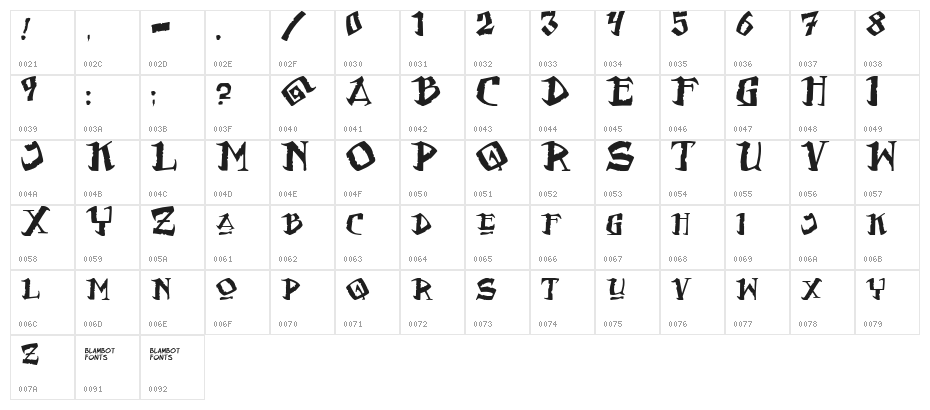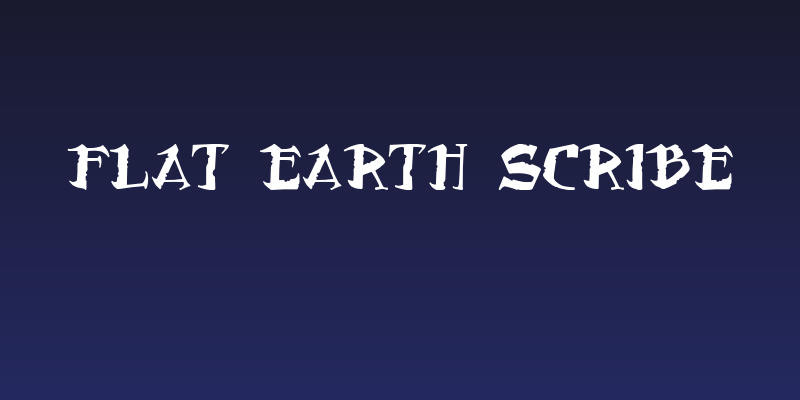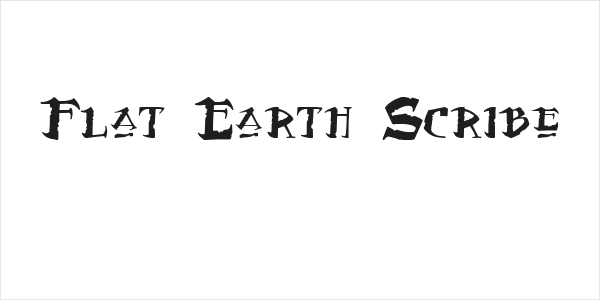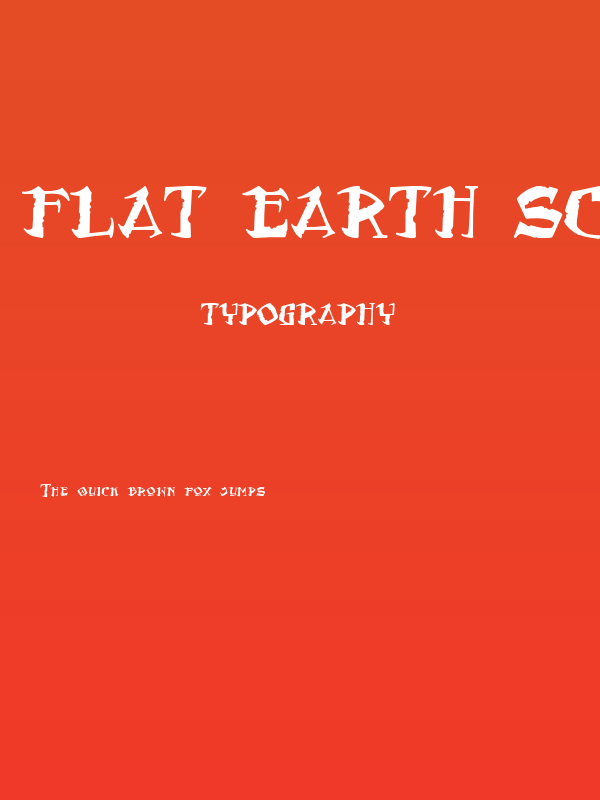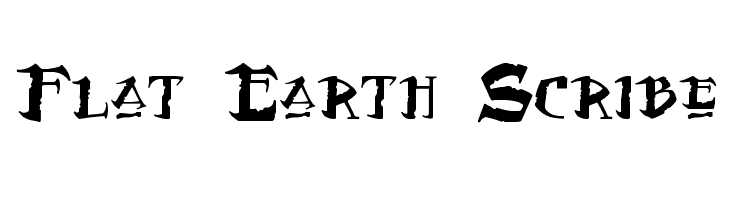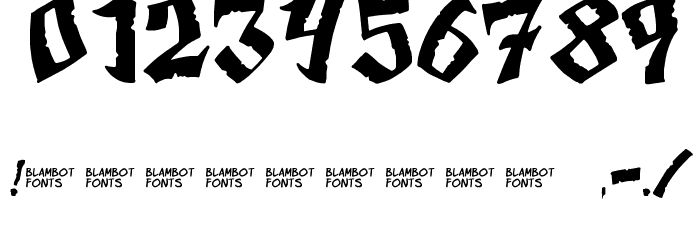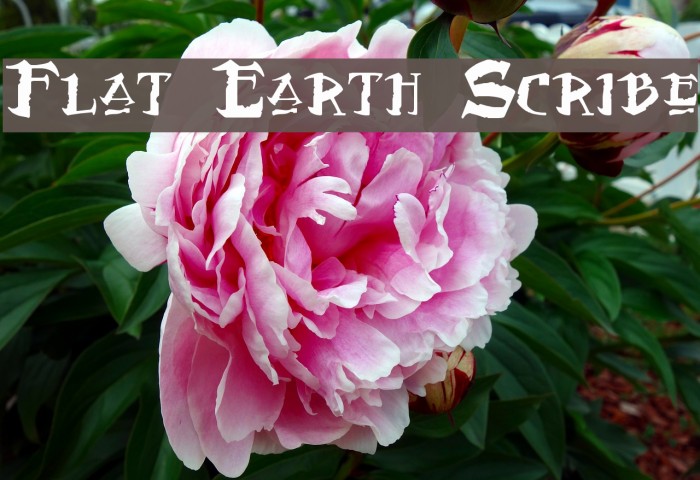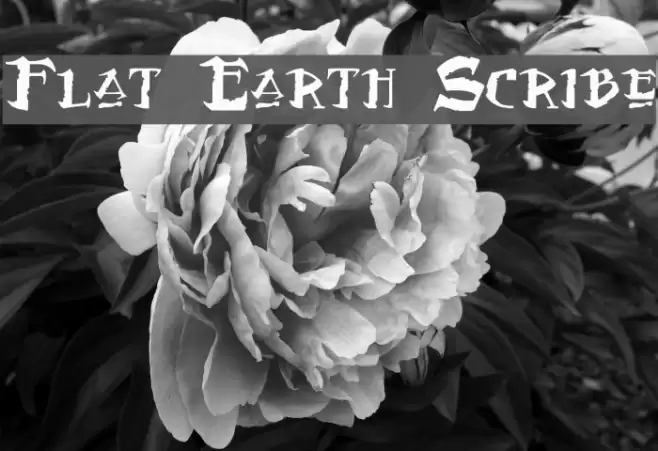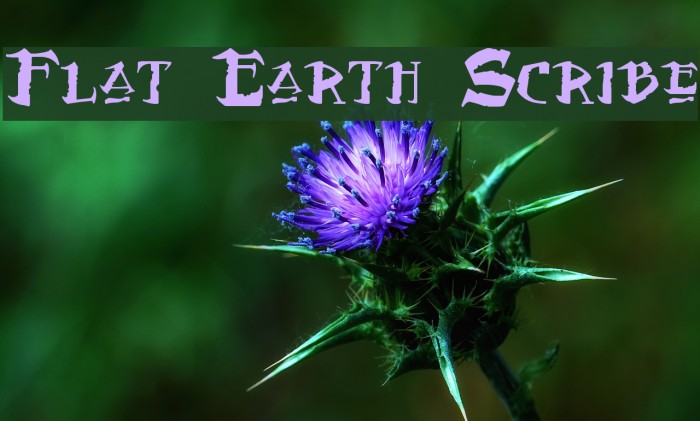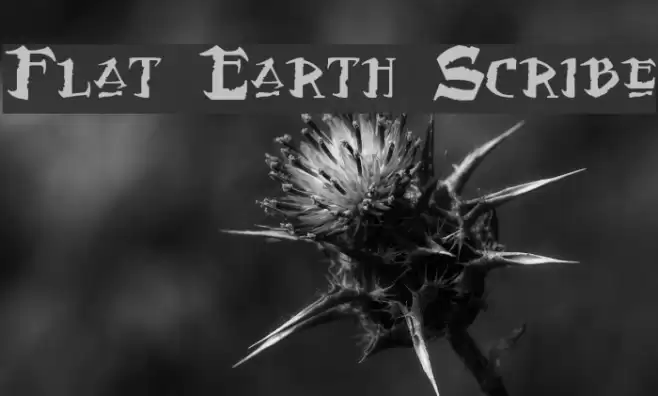
Flat Earth Scribe Font
Flat Earth Scribe Description
This font exhibits a bold and dynamic style with sharp, angular edges and a slightly distressed appearance. The characters are designed with a unique, hand-drawn quality that gives them a rugged and adventurous feel. The uppercase letters are particularly striking, with exaggerated serifs and a strong presence. The lowercase letters maintain the same boldness, creating a cohesive look across the alphabet. Numbers and special characters follow the same design principles, ensuring consistency throughout. This font is ideal for projects that require a sense of excitement and boldness.
| Proposed Projects | Perfect for comic book titles, adventure-themed posters, and video game graphics. |